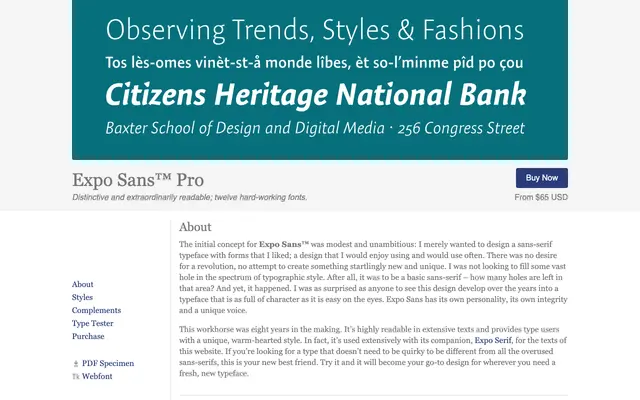
Expo Sans™ Pro
A warm-hearted humanist sans in six weights with italics, built over eight years for sustained readability in extended text settings.
Twelve fonts spanning Extra Light to Black with matching italics, offering a distinctive voice without resorting to quirk. The designer set out to create a sans-serif with forms they enjoyed using, and the result accumulated considerable character through its long development. A rich OpenType feature set covers small caps, oldstyle figures, fractions, ligatures and ordinals, making it well-suited to book and editorial work.
Described as a warm-hearted, characterful sans-serif with strong readability in extended text, placing it in the humanist sans tradition rather than a neutral grotesque or geometric style.